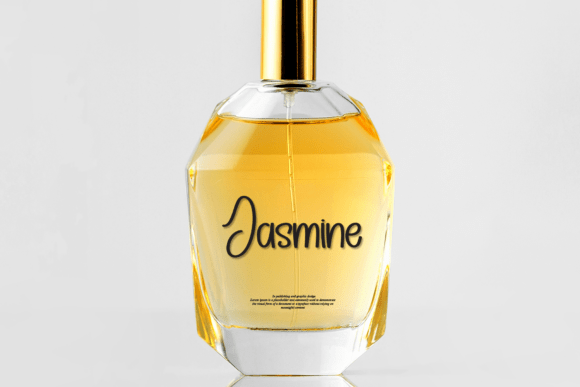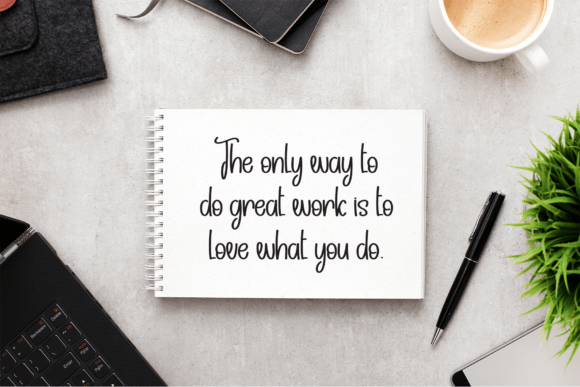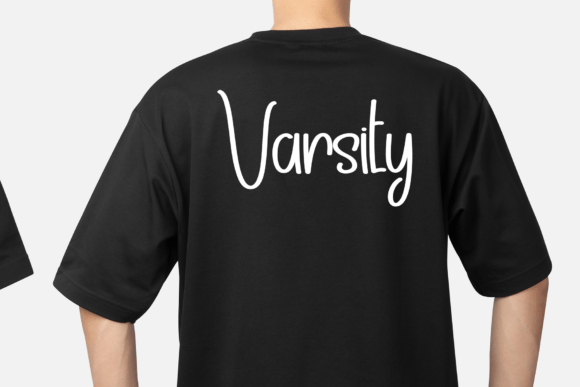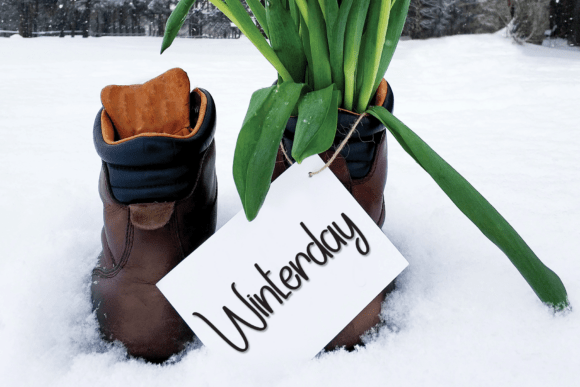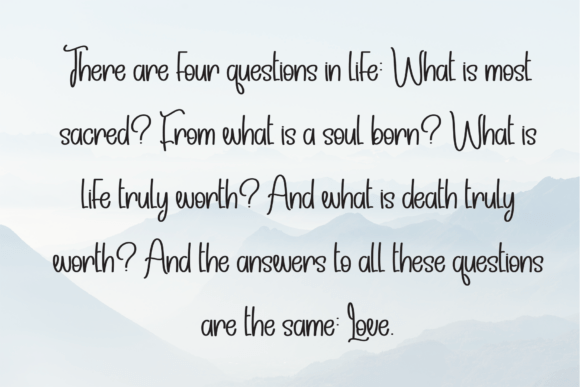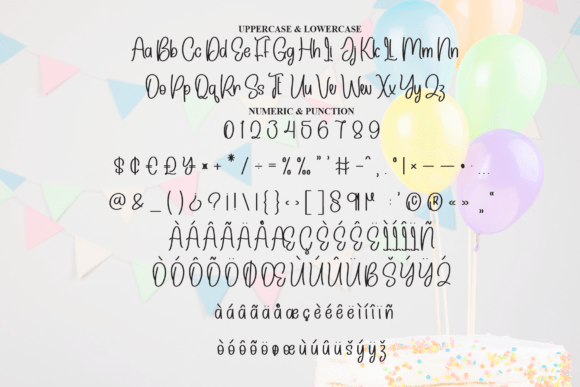
Introducing Birthday Rainbow Font: Elevate Your Designs with a Touch of Whimsy
Are you tired of using the same old fonts for your designs? Look no further than the Birthday Rainbow Font, a tall, slender display font that brings a fresh and creative approach to typography. With its unique blend of minimalist structure and playful personality, this font is perfect for designers and crafters looking to add a touch of whimsy to their work.
What Makes Birthday Rainbow Font So Special?
Birthday Rainbow Font features vertically elongated letterforms with a consistent monolinear stroke weight and smooth, rounded character joins. This distinctive design gives the font a breezy and imaginative personality that’s sure to capture the attention of your audience. The minimalist structure of the font is balanced by slightly irregular character widths and a high x-height, adding to its unique charm.
Whether you’re designing party invitations, children’s book titles, creative editorial headers, or vibrant social media graphics, Birthday Rainbow Font is an exceptional choice. Its playful and imaginative personality makes it perfect for projects that require a touch of fun and creativity. Here are just a few ideas to get you started:
- Party invitations: Use Birthday Rainbow Font to create eye-catching and festive invitations for birthday parties, baby showers, and other celebrations.
- Children’s book titles: Add a touch of whimsy to your children’s book titles with this fun and playful font.
- Creative editorial headers: Use Birthday Rainbow Font to add a pop of color and creativity to your editorial headers.
- Social media graphics: Make your social media graphics stand out with this bold and eye-catching font.
Key Features of Birthday Rainbow Font
Here are some of the key features that make Birthday Rainbow Font so special:
- Vertically elongated letterforms for a unique and creative look
- Consistent monolinear stroke weight for a clean and cohesive appearance
- Smooth, rounded character joins for a soft and rounded look
- Slightly irregular character widths and high x-height for added personality
- Multilingual support for a wide range of languages
Tips for Using Birthday Rainbow Font
Here are a few tips for getting the most out of Birthday Rainbow Font:
- Use it as a display font: Birthday Rainbow Font is perfect for headlines, titles, and other display text.
- Experiment with colors: The font’s bold and playful personality really comes alive with bright and bold colors.
- Pair it with other fonts: Try pairing Birthday Rainbow Font with a simpler font for body text to create a striking contrast.
Whether you’re a professional designer or a crafty DIY enthusiast, Birthday Rainbow Font is sure to become a favorite in your font collection. Its versatility and playfulness make it perfect for a wide range of design projects, from party invitations to social media graphics. So go ahead, get creative, and have fun with Birthday Rainbow Font!